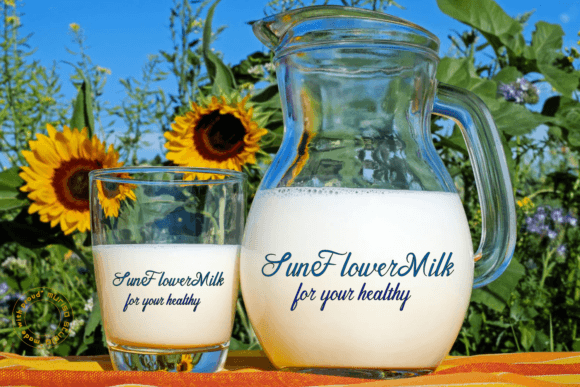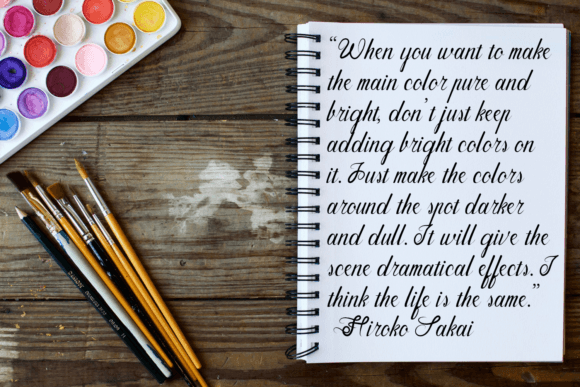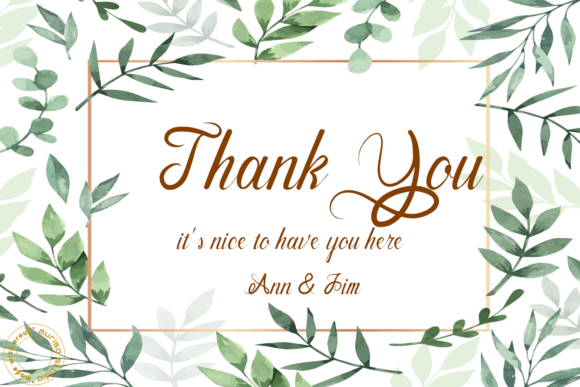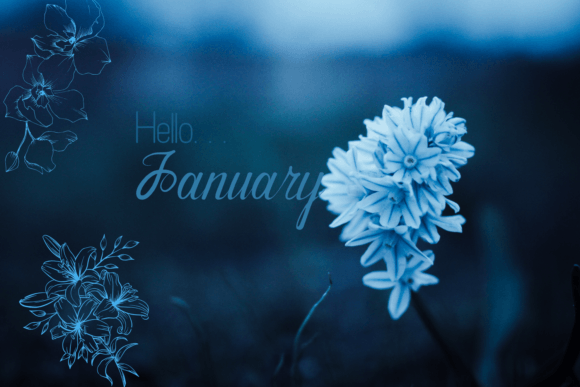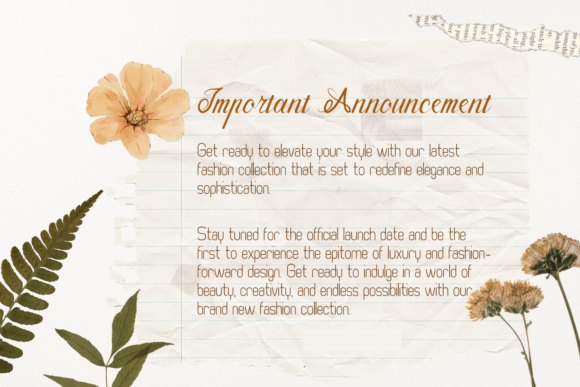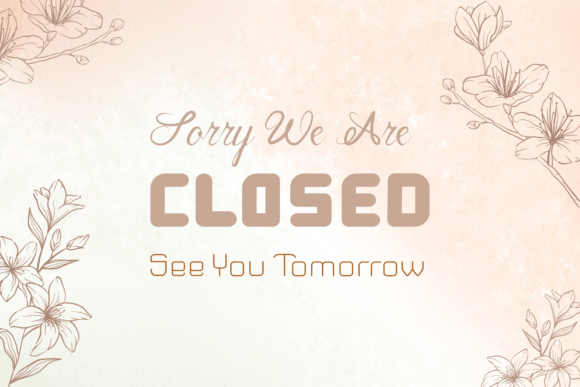
Introduction to Murisa Katrin Font
Murisa Katrin is a free-flowing script font created for packaging products, invitation cards, flyers, mockups, event posters, and anything else that requires high-quality vibes.
It has a beautiful and balanced character, that fits well with the large design pool .
Murisa Katrin Font offers exceptional quality and versatility, making it a valuable addition to your design toolkit. Whether you’re creating for personal projects or commercial use, Murisa Katrin Font delivers professional results.